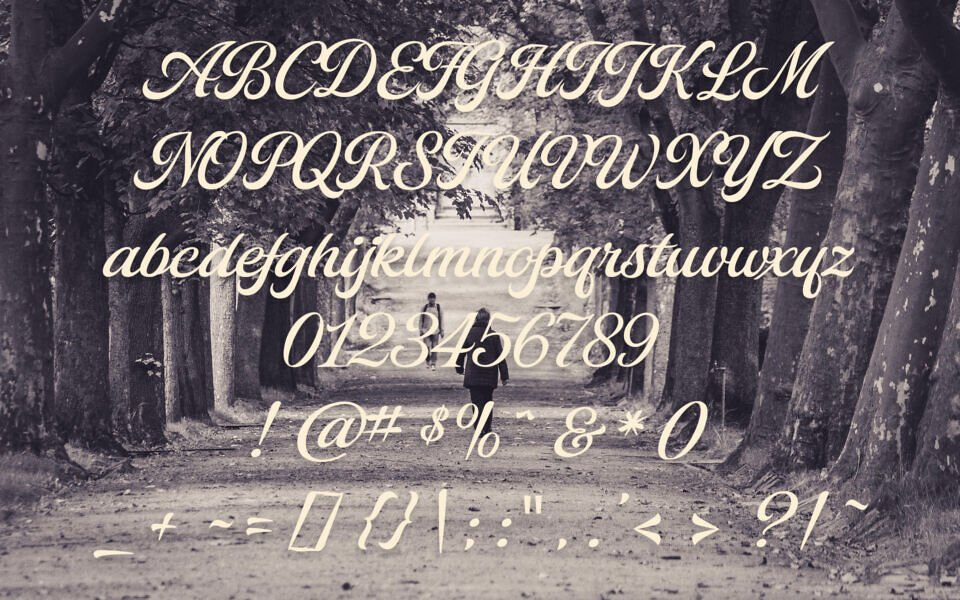
Avenue de Madison Font
Avenue de Madison is an elegant and flowing script font that exudes timeless sophistication. With its refined, cursive strokes and high contrast, it brings a classic charm perfect for invitations, branding, or romantic editorial designs.
The font’s graceful curves and stylish letterforms evoke the atmosphere of a dreamy, tree-lined boulevard, adding a sense of nostalgia and high fashion. Whether used in uppercase or lowercase, Avenue de Madison delivers a luxurious, handwritten feel that’s both vintage and chic.